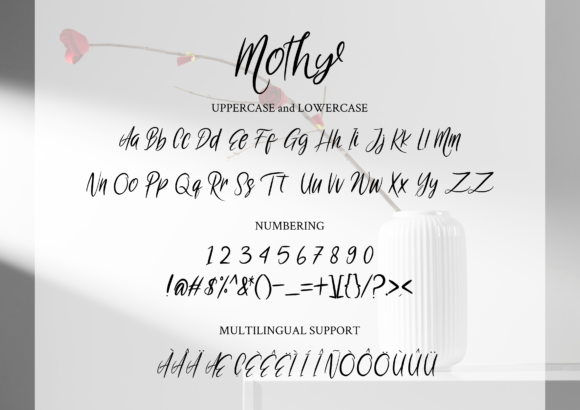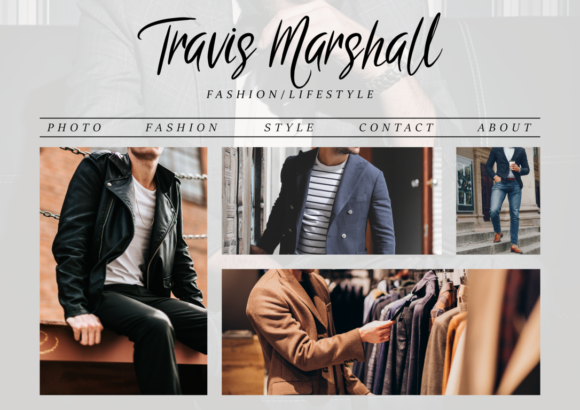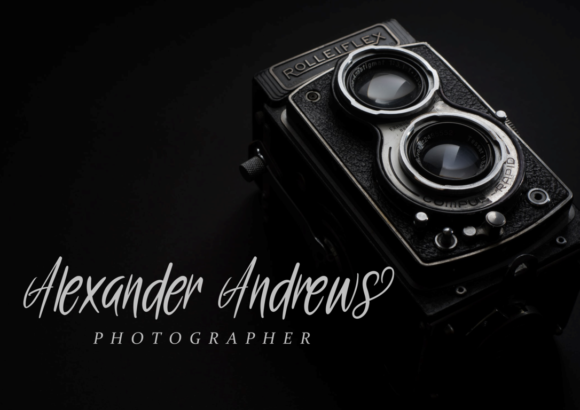
Introduction to Mothy Font
Mothy is a lovely and timeless handwritten font.
It is the best choice for creating eye catching logos, branding and quotes This font is PUA encoded which means you can access all of the beautiful glyphs and swashes with ease.
Key Features of Mothy Font
Why Choose Mothy Font?
Mothy Font offers exceptional quality and versatility, making it a valuable addition to your design toolkit. Whether you’re creating for personal projects or commercial use, Mothy Font delivers professional results.